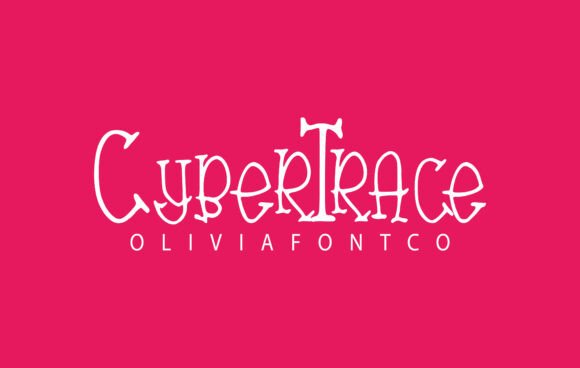
Cybertrace Font: The Ultimate Handwritten Font for Creative Projects
In the world of typography, fonts play a crucial role in conveying the tone and personality of a brand or creative project. With the vast array of fonts available, it can be overwhelming to choose the perfect one that captures the essence of your vision. However, if you’re looking for a font that exudes romance, elegance, and sophistication, look no further than Cybertrace Font. In this article, we’ll delve into the world of Cybertrace Font, exploring its features, benefits, and uses, as well as provide tips on how to make the most of this incredible font.
What is Cybertrace Font?
Cybertrace font is an authentic handwritten font with a romantic touch, expertly designed to be a true favorite among designers and creative enthusiasts. This font has the potential to take your creative ideas to the highest level, making it perfect for a wide range of projects, from magazine headlines to social media graphics, branding, wedding invitations, and more.
One of the standout features of Cybertrace Font is its legibility. This font is designed to be clear and easy to read, making it suitable for both title and body text. Its unique blend of elegance and playfulness makes it an excellent choice for designers looking to add a touch of sophistication to their work.
Key Features of Cybertrace Font
- Authentic Handwritten Style: Cybertrace Font boasts an authentic handwritten style that adds a personal touch to any project.
- Romantic Touch: This font exudes romance and elegance, making it perfect for wedding invitations, Valentine’s Day cards, and other romantic-themed projects.
- Legible: Cybertrace Font is designed to be clear and easy to read, making it suitable for both title and body text.
- Versatile: This font can be used for a wide range of projects, including magazine headlines, social media graphics, branding, and more.
Benefits of Using Cybertrace Font
So, why choose Cybertrace Font for your next project? Here are just a few benefits of using this incredible font:
- Adds a Personal Touch: Cybertrace Font’s handwritten style adds a personal touch to any project, making it stand out from the crowd.
- Enhances Brand Identity: This font can help establish a strong brand identity, particularly for businesses in the creative, fashion, or lifestyle industries.
- Increases Readability: Cybertrace Font’s legibility ensures that your message is conveyed clearly and effectively, making it perfect for body text.
- Versatile and Flexible: This font can be used for a wide range of projects, from digital graphics to print materials.
Tips for Using Cybertrace Font
To make the most of Cybertrace Font, here are a few tips to keep in mind:
- Pair with Other Fonts: Experiment with pairing Cybertrace Font with other fonts to create a unique and visually appealing combination.
- Use for Headlines and Titles: Take advantage of Cybertrace Font’s elegant style by using it for headlines and titles.
- Add Texture and Patterns: Add texture and patterns to your design to give it an extra layer of depth and interest.
- Experiment with Colors: Play around with different colors to find the perfect combination that complements your brand or project’s tone.
Common Uses of Cybertrace Font
Cybertrace Font is an incredibly versatile font that can be used for a wide range of projects, including:
- Magazine Headlines: Use Cybertrace Font to create eye-catching headlines and titles for your magazine or publication.
- Social Media Graphics: Add a touch of elegance to your social media graphics with Cybertrace Font.
- Branding: Establish a strong brand identity with Cybertrace Font, perfect for businesses in the creative, fashion, or lifestyle industries.
- Wedding Invitations: Make your wedding invitations stand out with Cybertrace Font’s romantic and elegant style.
- Cards and Stationery: Use Cybertrace Font to add a personal touch to your cards and stationery.
In conclusion, Cybertrace Font is an exceptional handwritten font that offers a unique blend of elegance, romance, and sophistication. Its legibility, versatility, and flexibility make it an excellent choice for designers and creative enthusiasts looking to take their projects to the next level. Whether you’re working on a magazine headline, social media graphic, branding project, or wedding invitation, Cybertrace Font is sure to impress. So why wait? Download Cybertrace Font today and experience the power of beautiful typography!